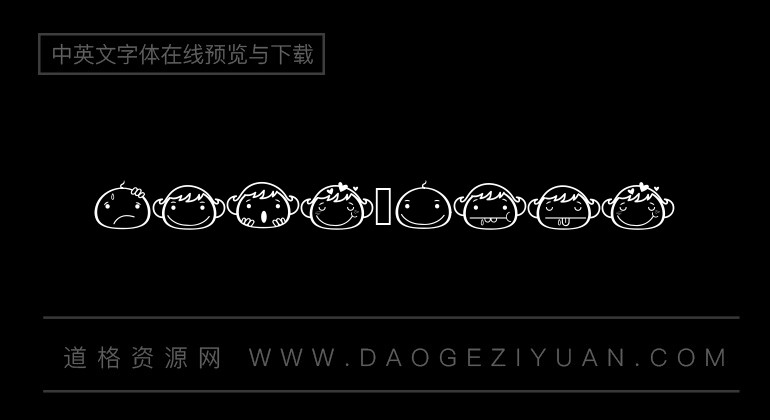
Face Alin
Face Alin is a very good handwriting art font, with a good visual sense, suitable for cultural propaganda design, commercial brand advertising and product packaging design and personalized text typesetting and other more scenes.